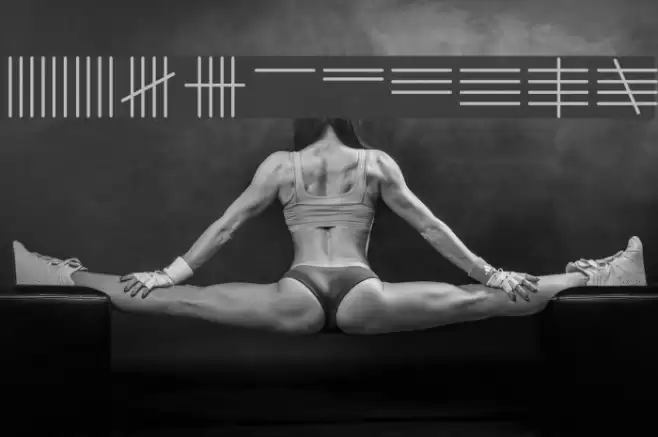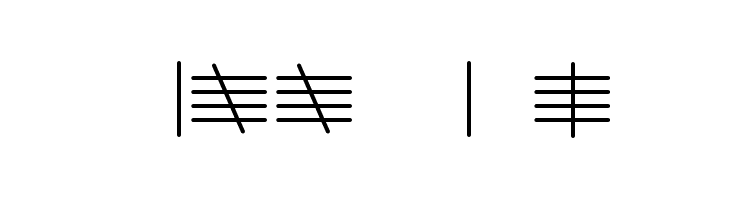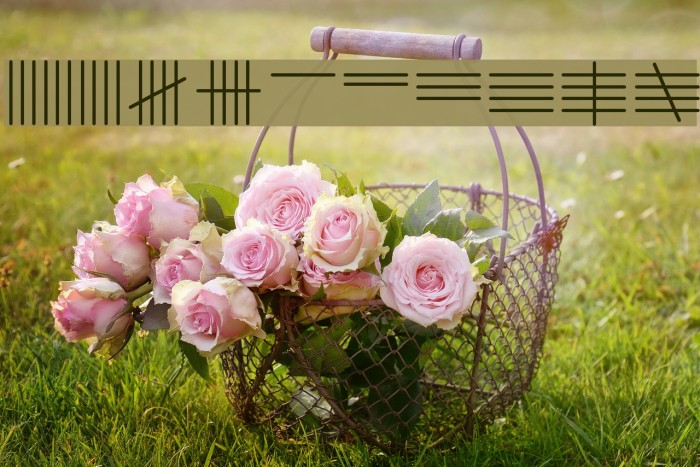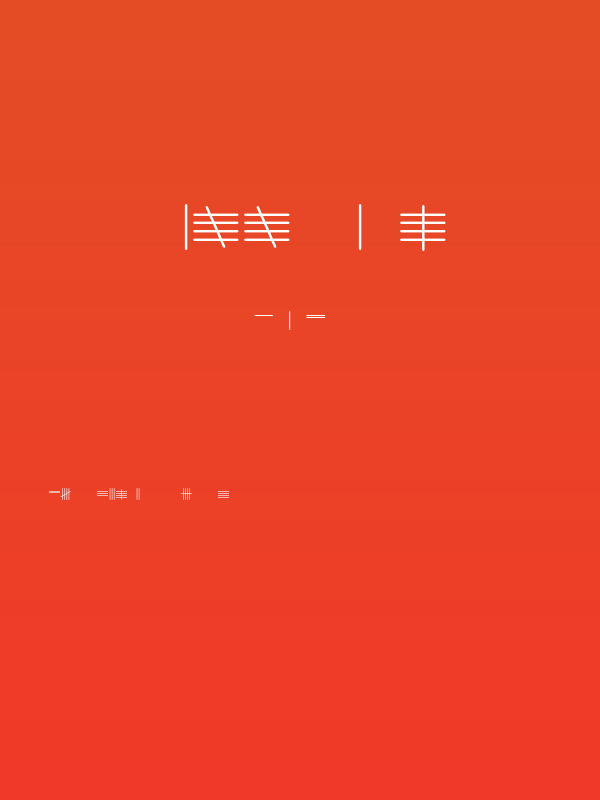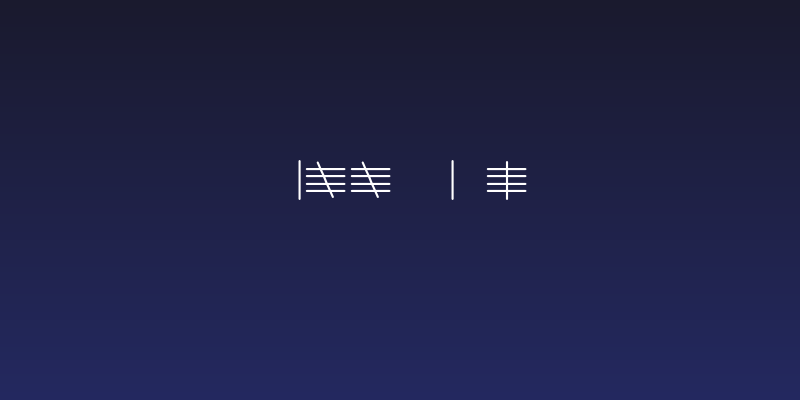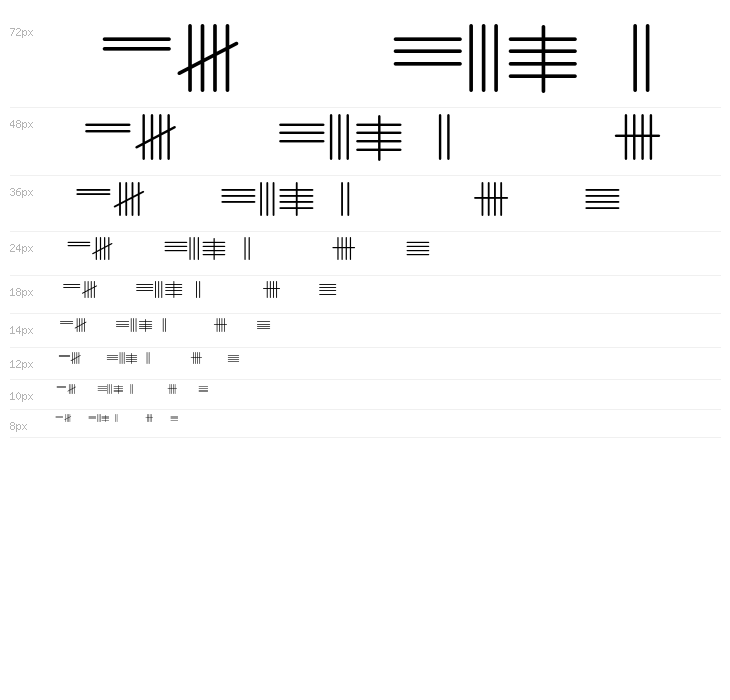
TallyMark Font
TallyMark Description
This is not a traditional font but rather a representation of tally marks used for counting. The image displays a series of vertical lines grouped in sets of five, with the fifth line crossing the previous four. This method is commonly used for quick and easy counting, often in informal settings. The tally marks are evenly spaced and consistent in size, providing a clear visual representation of quantities. This style is straightforward and functional, lacking any decorative elements or variations in stroke width.
A visual representation of tally marks for counting from Uncategorized fonts.
- Proposed Projects: Ideal for educational materials, counting exercises, or any project requiring a simple visual counting method.
- Overall Style: Functional
- Use Case: Informal counting, educational tools